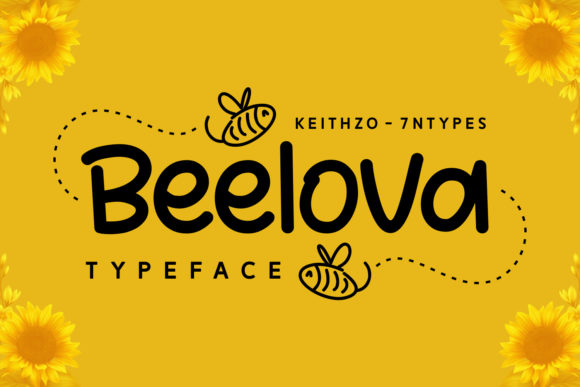
Introducing Beelova Font, the ultimate script font designed to bring your crafting visions to life! Unleash your creativity with this enchanting handwritten font that boasts impeccable readability, adding a playful and personal touch to all your projects.
Crafted with meticulous attention to detail by Keithzo (7NTypes), Beelova Font is the perfect choice for Cricut users seeking an exceptional font for foil designs. Its graceful strokes and charming characters dance across your designs, creating a captivating and eye-catching visual experience.
With Beelova Font, you can effortlessly elevate your projects to new heights. Create stunning invitations, greeting cards, social media graphics, and personalized gifts that leave a lasting impression. Its versatility extends to branding materials, logos, and website designs, offering endless possibilities for creative expression.
Step into a world of imagination and let Beelova Font guide you. Adorn your designs with the included fun doodles, adding a touch of whimsy and delight to your creations. Let your imagination run wild as you incorporate Beelova Font into your crafting adventures.